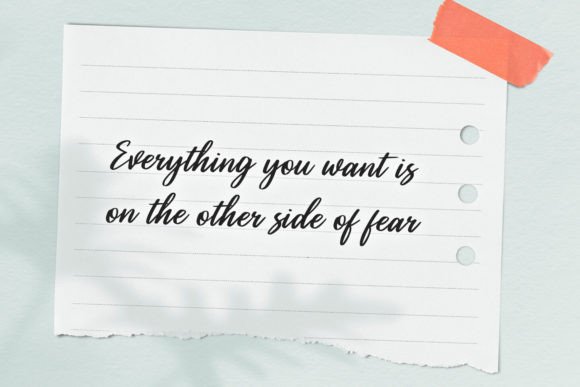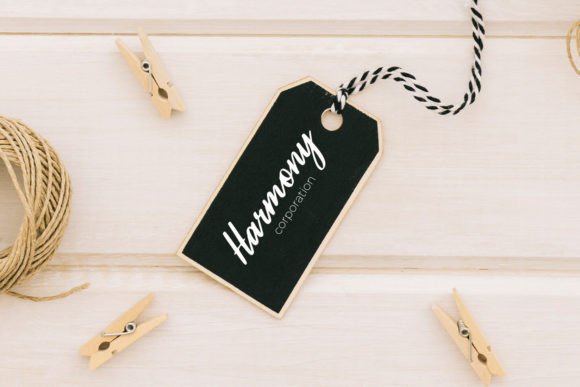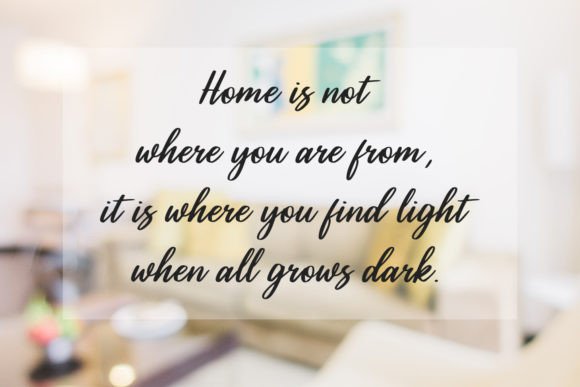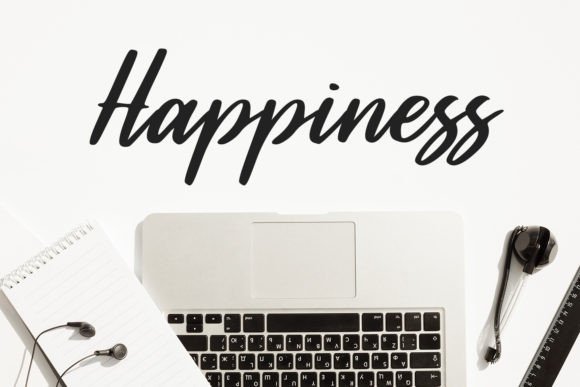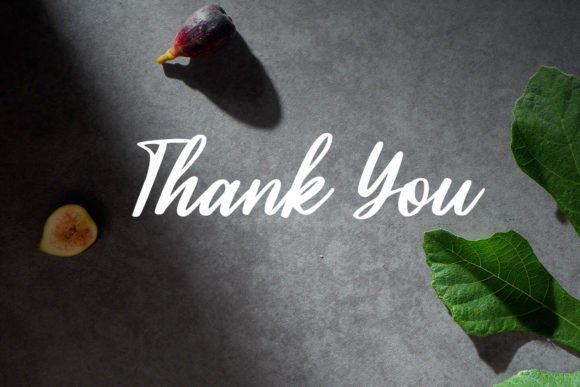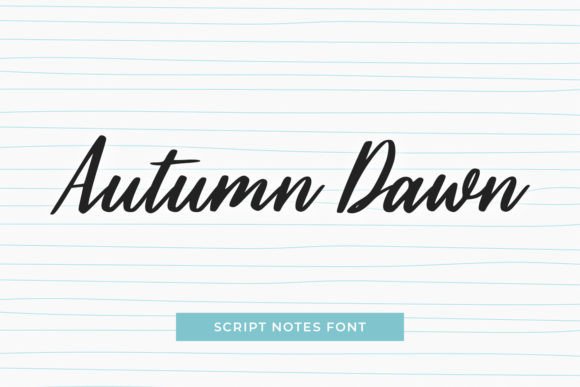
Discover the Charm of Autumn Dawn Font: A Sweet and Friendly Handwritten Delight
As the seasons change and autumn arrives, designers and crafters are on the lookout for fresh inspiration and new fonts to add a touch of warmth and coziness to their projects. If you’re searching for a font that embodies the spirit of the season, look no further than Autumn Dawn Font. This sweet and friendly handwritten font is perfect for adding a personal touch to your designs, and its versatility knows no bounds.
The Unique Style of Autumn Dawn Font
Autumn Dawn Font boasts a natural and unique style that makes it incredibly fitting for a wide range of designs. Its handwritten charm is perfect for creating a sense of warmth and approachability, making it ideal for projects that require a personal touch. Whether you’re designing invitations, greeting cards, or social media graphics, Autumn Dawn Font is sure to add a touch of whimsy and delight.
One of the standout features of Autumn Dawn Font is its friendly and approachable demeanor. The font’s rounded edges and flowing lines create a sense of softness and gentleness, making it perfect for designs that require a touch of sweetness. Whether you’re creating a logo, branding materials, or website graphics, Autumn Dawn Font is sure to make a lasting impression.
The Possibilities are Endless with Autumn Dawn Font
The only limit to what you can create with Autumn Dawn Font is your imagination! This versatile font can be used for a wide range of projects, from:
- Website headers and footers
Whether you’re a designer, crafter, or DIY enthusiast, Autumn Dawn Font is sure to become a favorite in your toolkit. Its flexibility and charm make it the perfect choice for any project that requires a personal touch.
Why Designers and Crafters Love Autumn Dawn Font
So, what makes Autumn Dawn Font so special? Here are just a few reasons why designers and crafters love this sweet and friendly handwritten font:
- Unique and eye-catching: Autumn Dawn Font is a one-of-a-kind font that is sure to grab attention and make your designs stand out.
- Versatile: This font can be used for a wide range of projects, from formal to informal, and is perfect for both digital and print designs.
- Easy to read: Autumn Dawn Font is clear and easy to read, making it perfect for body text and headlines.
- Customizable: With its wide range of characters and glyphs, Autumn Dawn Font can be easily customized to fit your design needs.
Get Creative with Autumn Dawn Font
Whether you’re a seasoned designer or a DIY enthusiast, Autumn Dawn Font is the perfect choice for any project that requires a personal touch. So why wait? Start exploring the possibilities of Autumn Dawn Font and discover the magic of this sweet and friendly handwritten font for yourself.